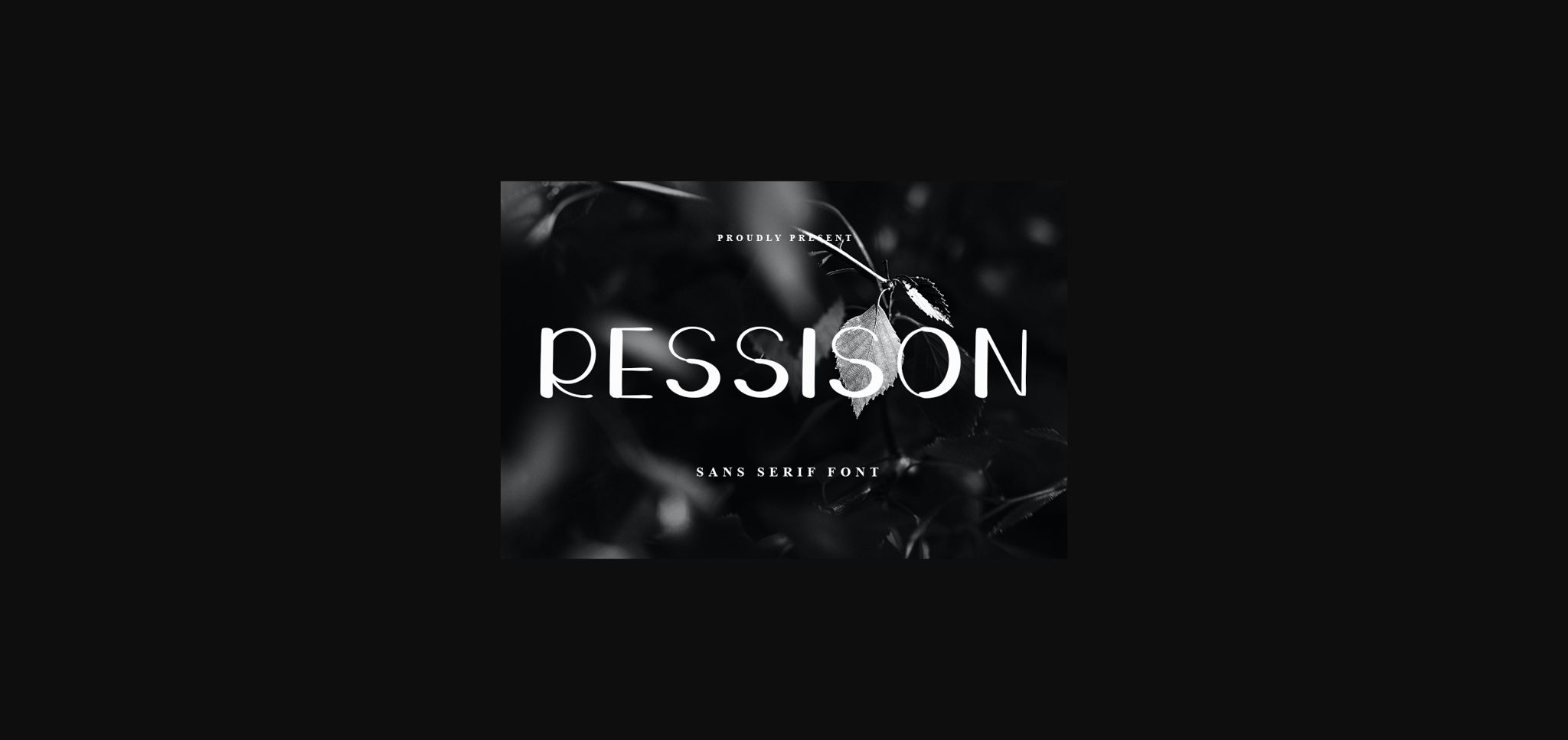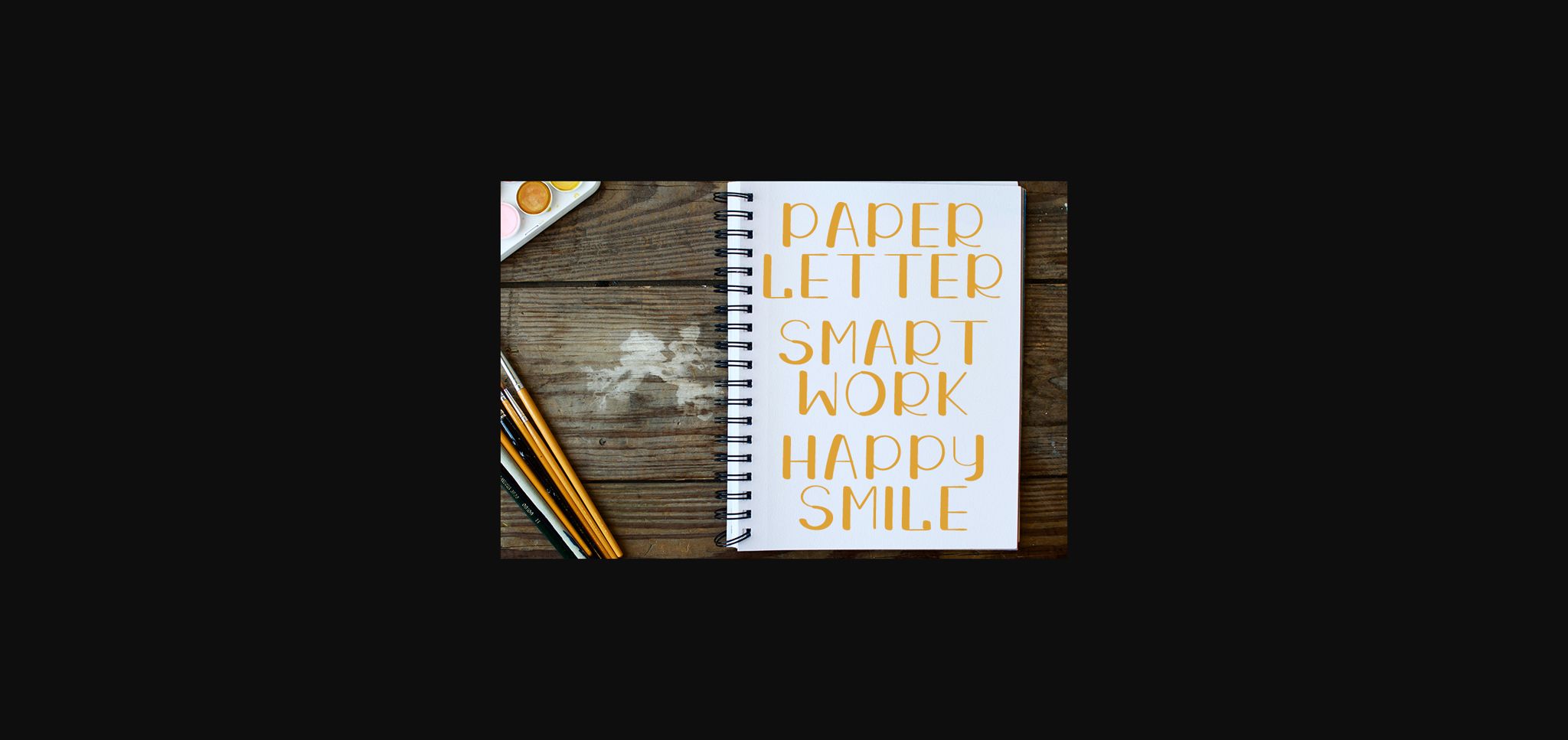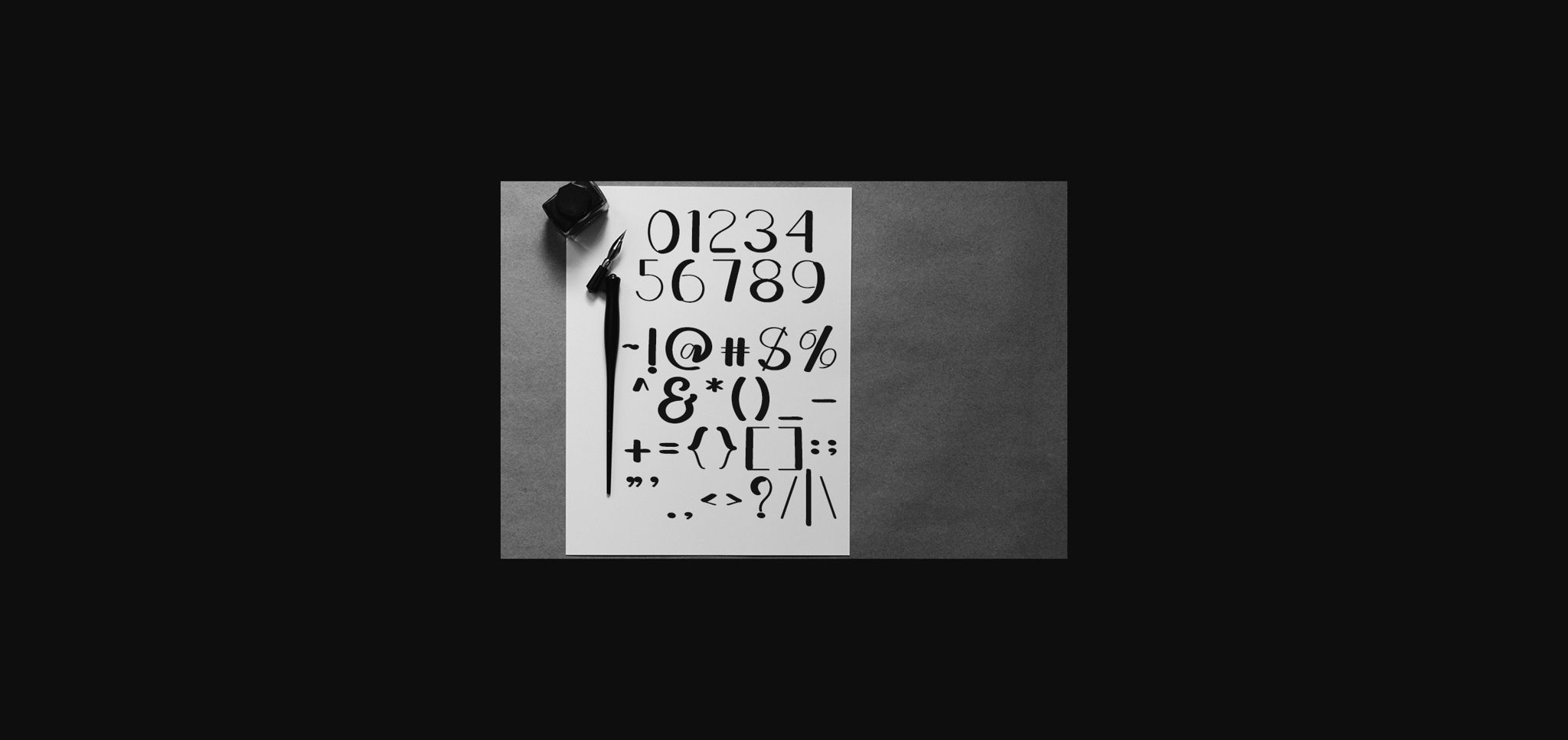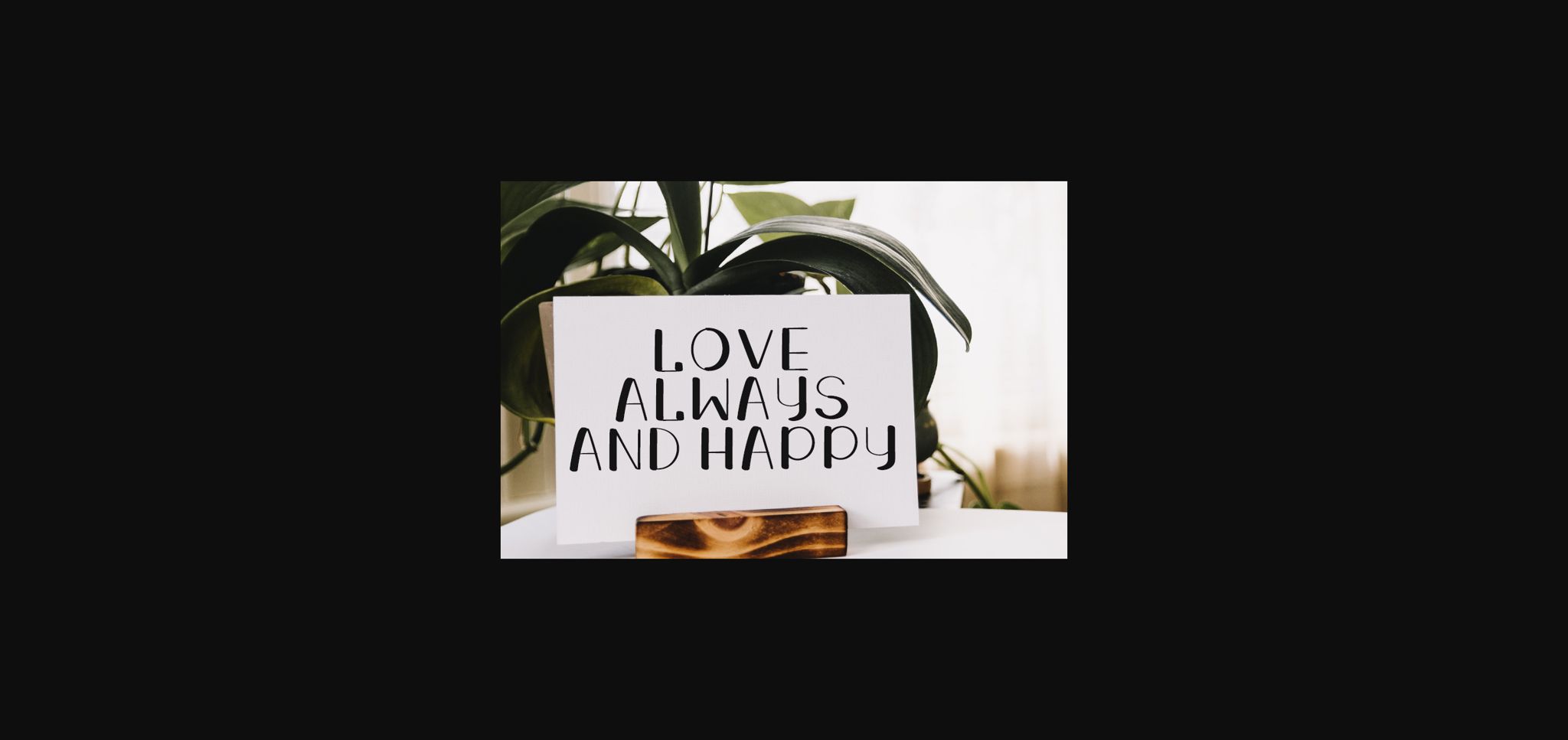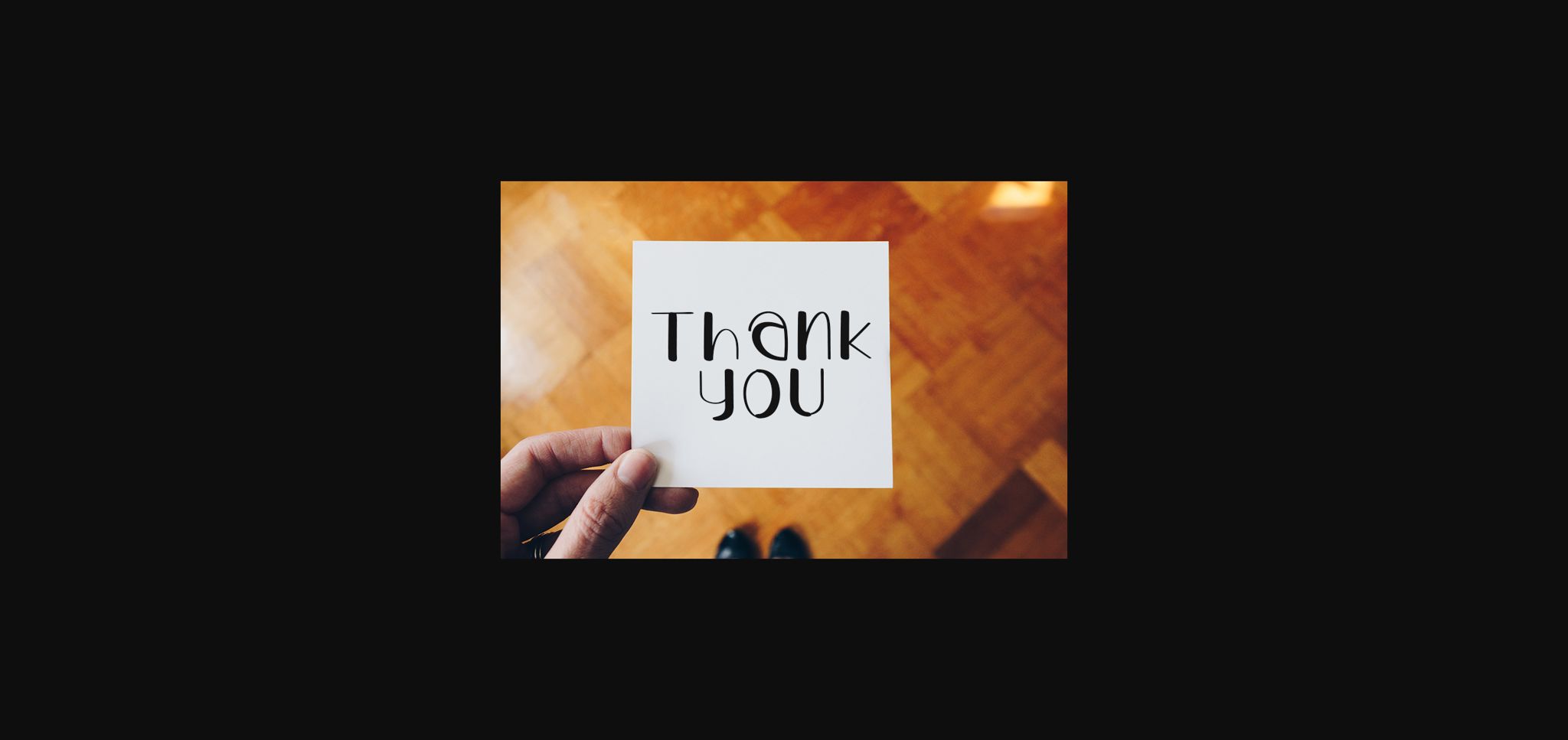
About Ressison Font
Ressison is a strong and round lettered sans serif font. Add it to your most creative ideas and notice how it makes them come alive!